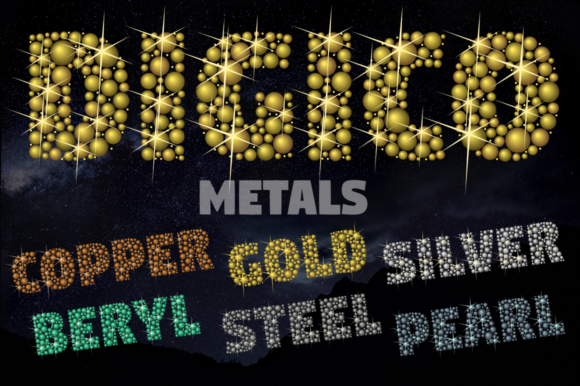
Introducing Digico Metals Font, the ultimate font for metal signs that will captivate your imagination and elevate your designs to new heights! Created by the talented glukfonts, this color font is a true masterpiece that will leave you in awe.
With its incredibly unique and interesting style, Digico Metals Font is a game-changer in the world of typography. Its vibrant colors and striking metallic effects will make your designs stand out from the crowd and grab everyone's attention. Whether you're creating signage for a business, designing posters, or crafting eye-catching graphics, this font is a must-have.
What sets Digico Metals Font apart is its versatility. It adapts effortlessly to any design concept, allowing you to unleash your creativity and bring your vision to life. From sleek and modern to rugged and industrial, this font can do it all. It's like having a toolbox full of different fonts, all in one package.
When you download Digico Metals Font, you're not just getting a font – you're unlocking a world of possibilities. Let your imagination run wild and create jaw-dropping designs that leave a lasting impression. Whether you're designing logos, banners, or social media graphics, this font will add that extra touch of brilliance that sets you apart from the competition.